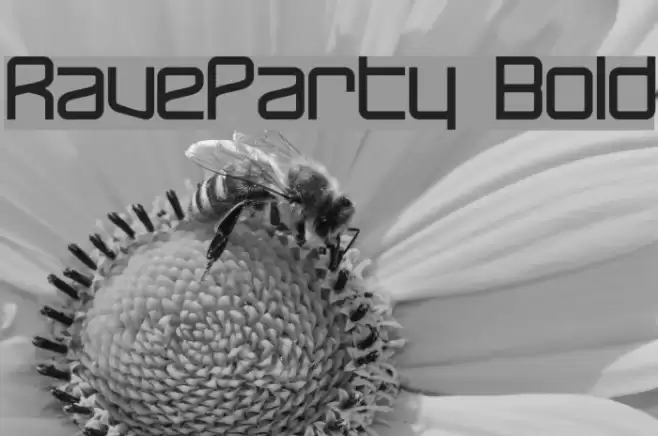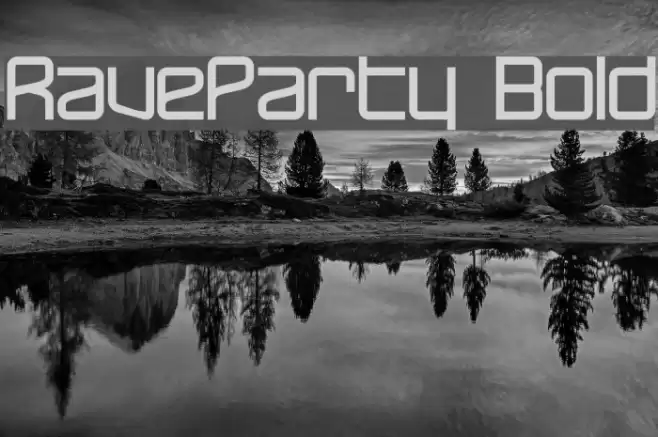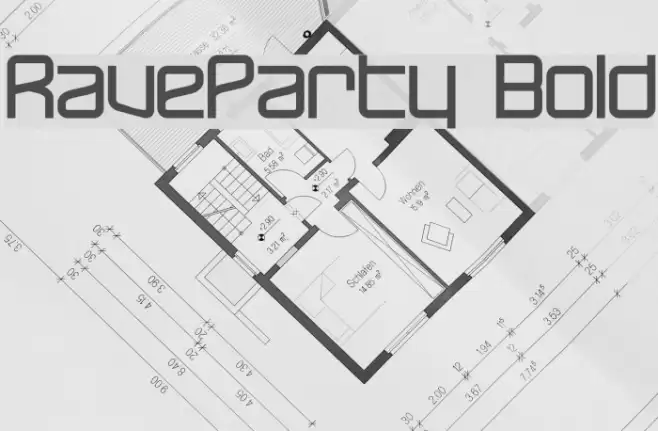
RaveParty Bold Font
RaveParty Bold Description
This font features a bold, geometric design with a futuristic flair. The characters are constructed with uniform line thickness, giving it a modern and sleek appearance. The uppercase and lowercase letters maintain a consistent height, while the numerals and special characters complement the overall style. The font's structure is clean and minimalistic, making it suitable for digital and print media that require a contemporary look. Its boldness ensures high visibility and readability, even from a distance, making it ideal for attention-grabbing headlines and titles.
A bold, geometric font with a futuristic and modern design from Uncategorized fonts.
- Proposed Projects: Ideal for digital interfaces, tech branding, event posters, and modern advertising campaigns.